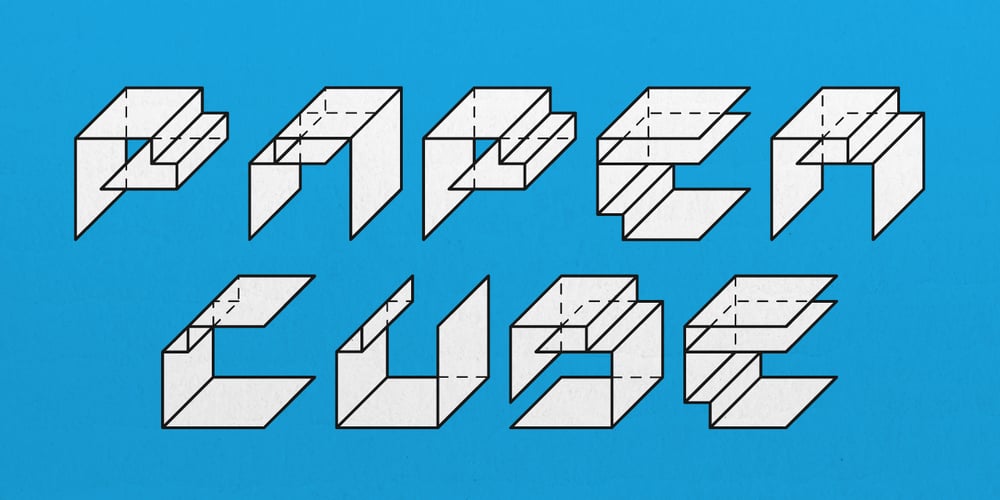
Paper Cube Font Family was designed by Gilberto Moya Perona and published by Pisto Casero. Paper Cube contains 3 styles and family package options. Paper Cube font family is the first font I’ve created. I unconciously started to draw letterforms with straight horizontal and vertical lines contained in a square. Soon this experiment became a 3d outlined display family of 3 weights, each one of them gaining depth and articulating into planes. Designed in Cuenca (Spain) in 2011.